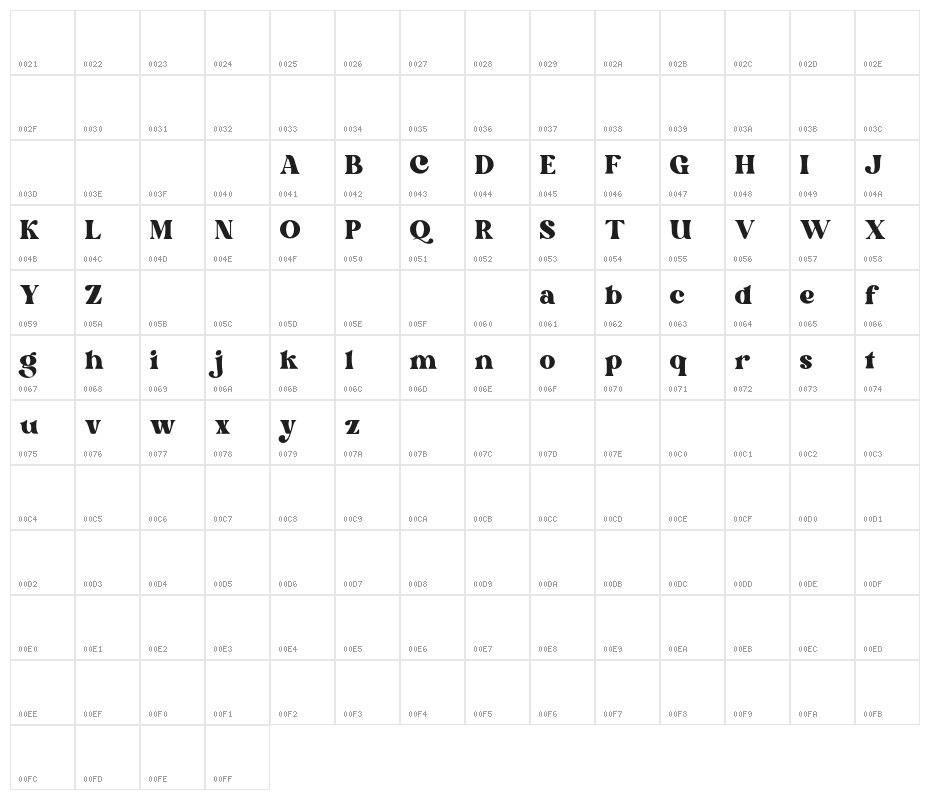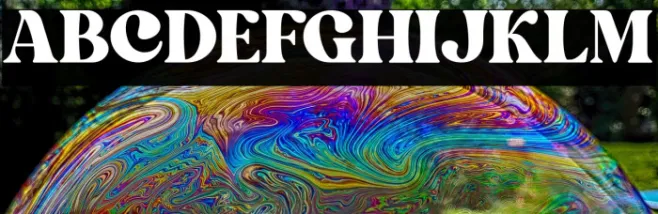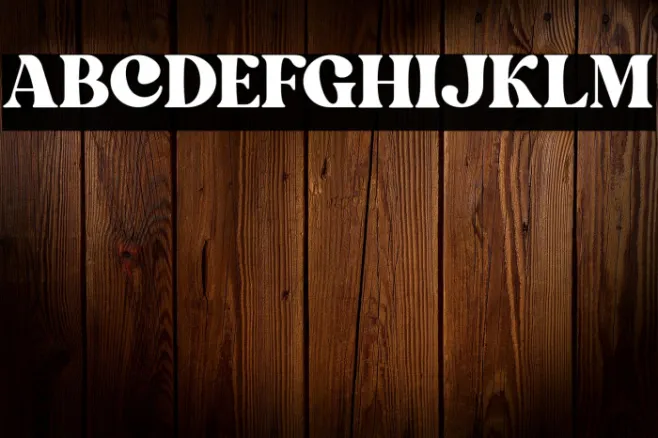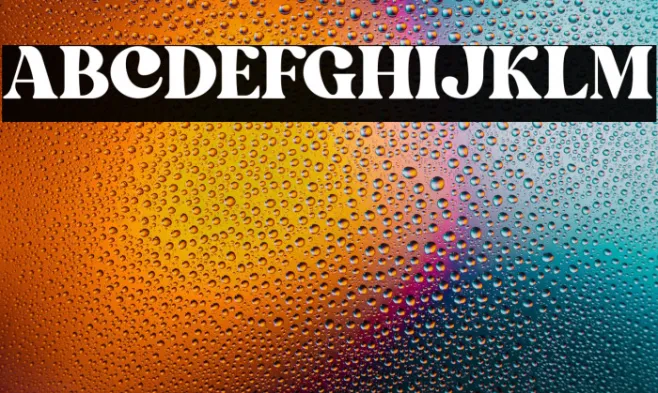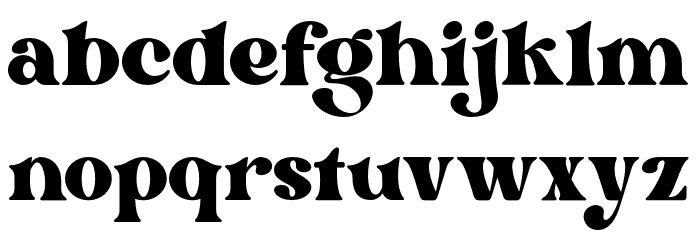
Bright DEMO Font
Bright DEMO Description
This font features a bold and dynamic style with high contrast between thick and thin strokes, giving it a dramatic and eye-catching appearance. The serifs are pronounced and slightly curved, adding a touch of elegance and sophistication. The overall design is reminiscent of vintage typography, yet it maintains a modern flair. The uppercase letters are particularly striking, with unique flourishes that enhance their visual impact. The lowercase letters complement the uppercase with a consistent style, ensuring readability while maintaining the decorative elements. The numbers and special characters are designed with the same attention to detail, making this font versatile for various applications.
| Categories | Retro |
| Overall Style | Vintage |
| Proposed Projects | Ideal for branding, headlines, posters, and editorial design where a strong visual impact is desired. |